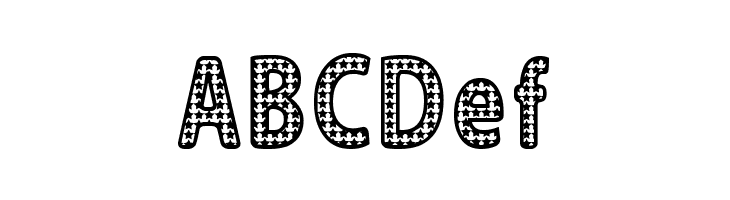
A bold, star-patterned decorative font ideal for festive designs.
A playful, starry decorative font with a whimsical, sparkling design.
A bold, decorative font with a starry texture, perfect for creative projects.
A decorative font composed of star-shaped characters, perfect for playful and themed designs.